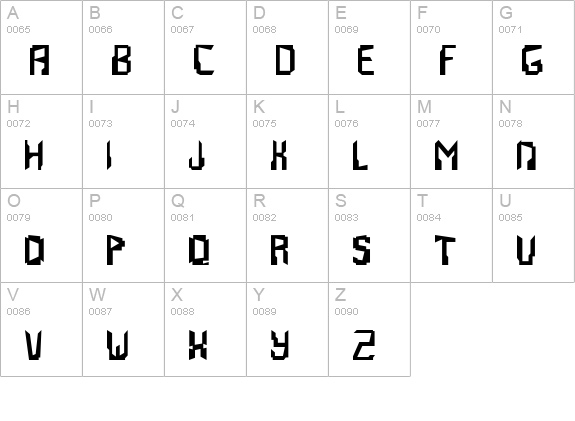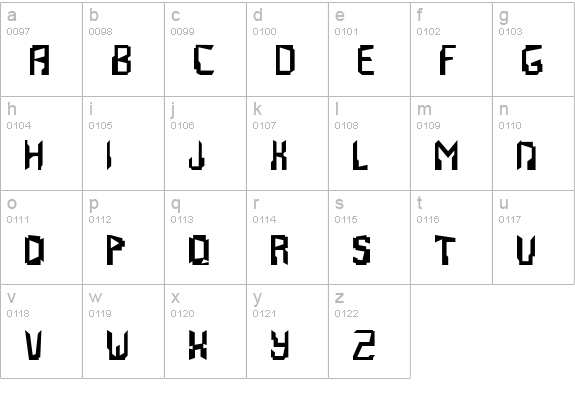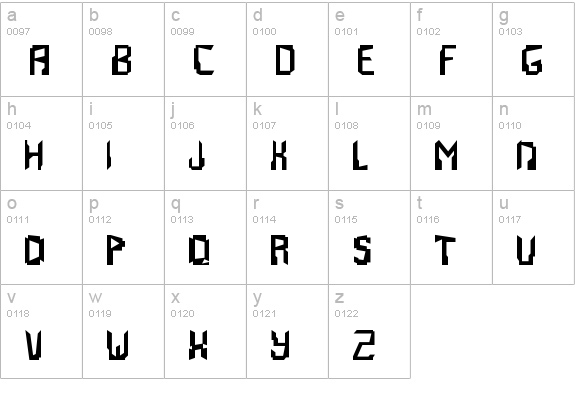
Abstrakt Font Details
Abstrakt font is a modern and stylish typeface that exudes sophistication and elegance. With its clean lines and sleek design, Abstrakt is perfect for a wide range of design projects, from branding to editorial design. The font's unique geometric shapes give it a contemporary and avant-garde feel, making it stand out from the crowd. The best part about Abstrakt font is that it is completely free to download at FontsMarket.com. This means that you can easily access this high-quality typeface without any cost, making it a valuable addition to your font library. Whether you are a professional designer or a creative enthusiast, Abstrakt font offers versatility and flexibility to elevate your projects to the next level. Download Abstrakt font today from FontsMarket.com and unleash your creativity with this stunning typeface that is sure to make a lasting impression.